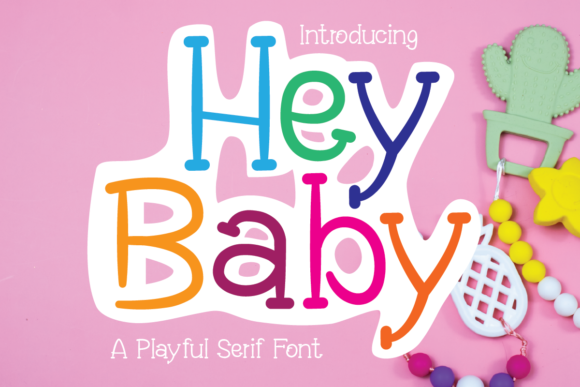
Unleash the Delightful Essence of 'Hey Baby' Font - Where Elegance and Charm Intertwine
Embark on an enchanting typographic journey with 'Hey Baby,' a captivating serif font that exudes charm and playfulness. Its meticulously crafted curves and delicate strokes evoke a sense of joy and wonder, making it the perfect font for projects that demand a touch of whimsy and warmth.
Dive into a world of boundless creativity as 'Hey Baby' graces your designs with its elegant presence. Its versatile nature allows it to effortlessly adapt to a myriad of styles, from playful children's books and cheerful animations to quirky logos and eye-catching social media posts. Let your imagination soar as you discover endless possibilities with this versatile font.
Step into a realm of visual delight as 'Hey Baby' transforms your creations into captivating masterpieces. Its distinctive character effortlessly commands attention, drawing viewers into the heart of your designs. Whether you're crafting posters that burst with vibrancy or websites that exude sophistication, 'Hey Baby' will elevate your work to new heights.
With 'Hey Baby' as your creative companion, you'll find yourself immersed in a symphony of visual harmony. Its seamless flow and balanced proportions create a cohesive aesthetic that captivates and enchants. Prepare to witness your designs take center stage, radiating an aura of charm and elegance that will leave a lasting impression on your audience.
Immerse yourself in the enchanting world of 'Hey Baby' and unleash a symphony of creativity. This font is not just a collection of letters; it's an invitation to embark on an artistic adventure, where every project becomes a captivating story waiting to be told. Let 'Hey Baby' be your muse, guiding you towards typographic brilliance.